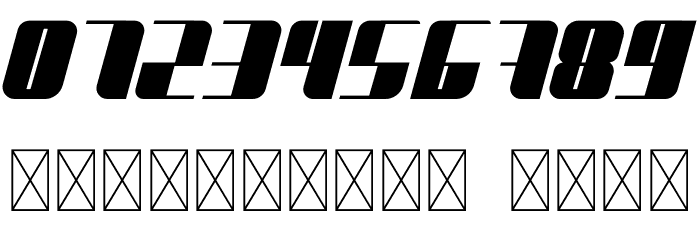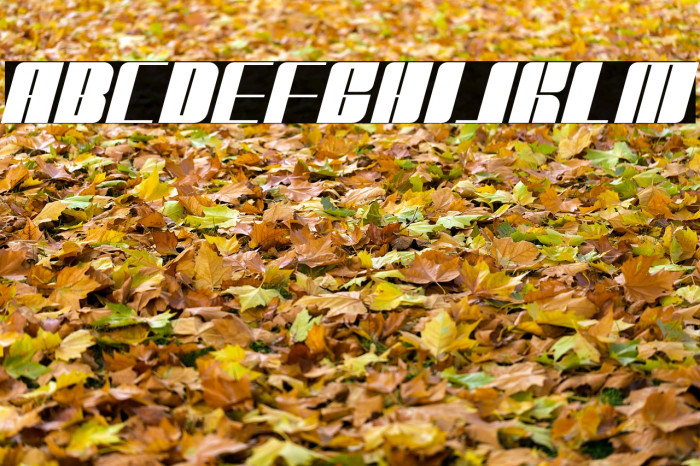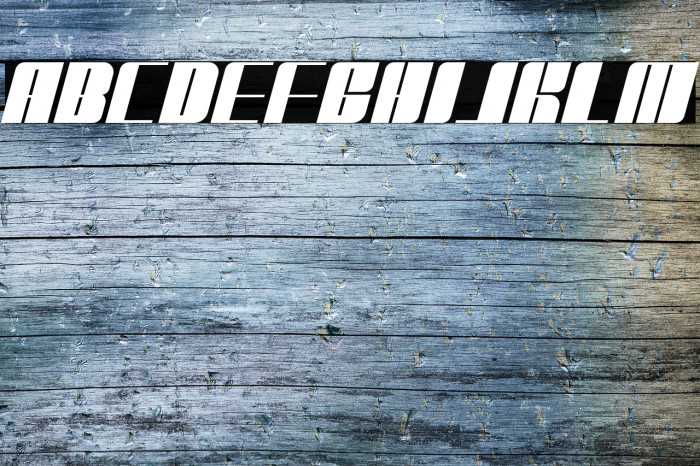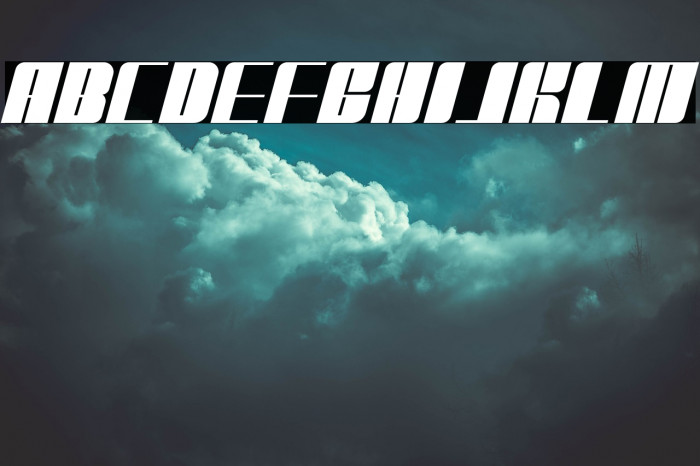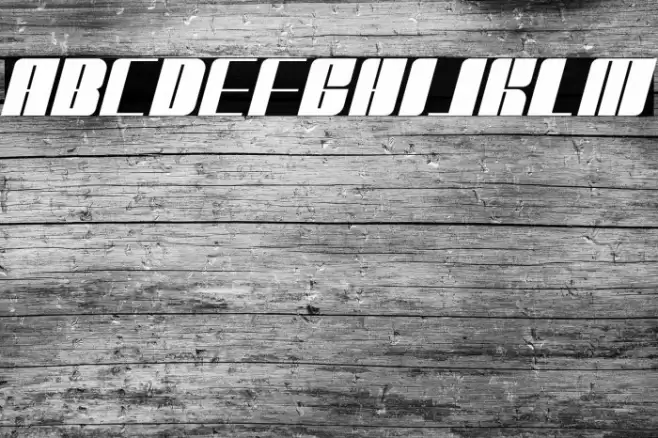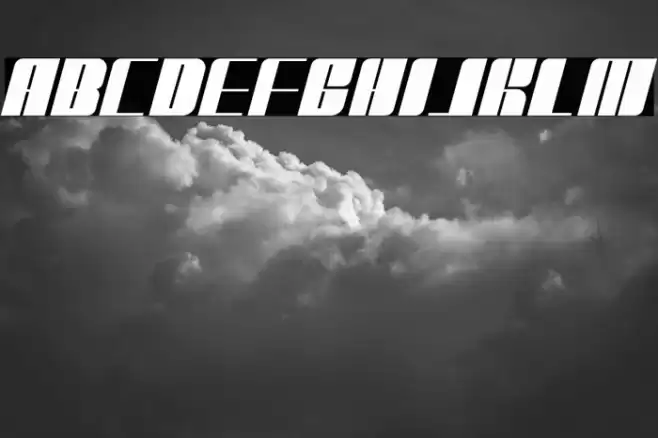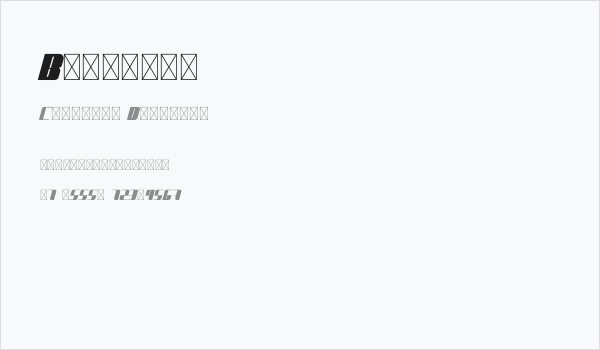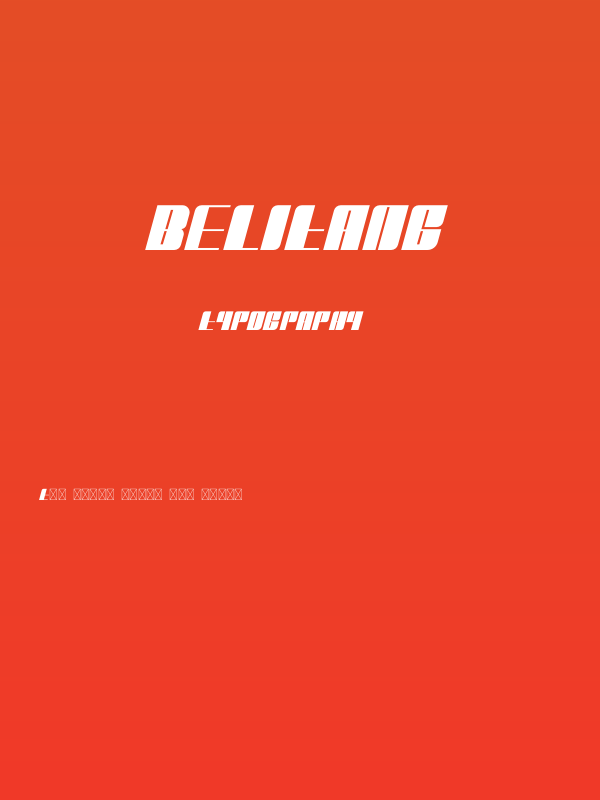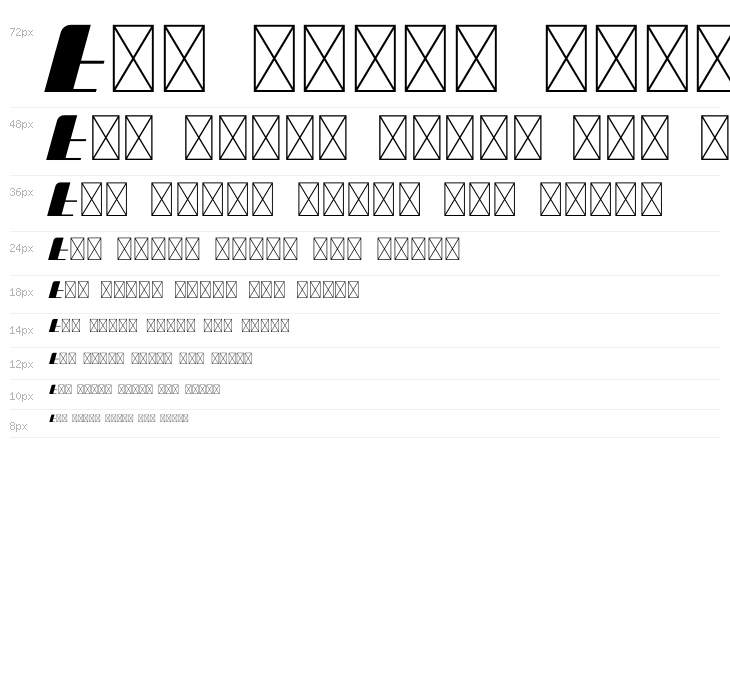
Belitang Font
This font exhibits a bold and dynamic style with a strong geometric influence. The characters are slanted, giving a sense of motion and speed, which is further emphasized by the sharp angles and clean lines. The uppercase letters are particularly striking, with a futuristic and modern aesthetic that makes them stand out. The numbers follow the same design principles, maintaining consistency across the character set. This font lacks lowercase letters and special characters, focusing on a streamlined and impactful appearance.
A bold, slanted font with a futuristic and geometric style.
- Proposed Projects: Ideal for projects that require a modern and dynamic look, such as sports branding, automotive designs, or technology-related advertisements.